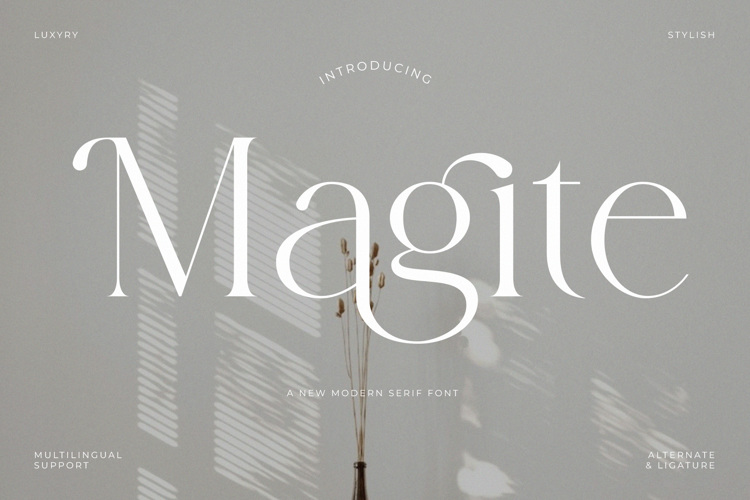
Magite Font
Magite is an elegant high-contrast serif typeface with a modern Didone character. Hairline unbracketed serifs, dramatic thick-thin contrast, and graceful details give it a luxurious fashion-editorial feel — ideal for logos, branding, wedding stationery, magazine headlines, and upscale packaging. Free for personal use; a commercial license is available from the designer.